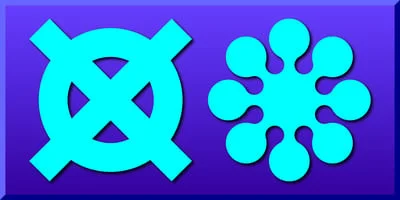
Geometric Ornaments Font
Geometric Ornaments Font is perfect for modern architectural presentations, contemporary art gallery exhibitions, minimalist design portfolios, geometric pattern textile designs, mathematical visualization projects, and sophisticated decorative border applications. Its precise character makes it ideal for architecture firms, contemporary artists, pattern designers, mathematics educators, and any application requiring systematic typography that conveys geometric precision, mathematical beauty, and the elegant harmony of perfectly balanced ornamental design elements.
Geometric Ornaments Font is exciting because it celebrates the mathematical perfection and visual harmony of geometric design through precisely crafted ornamental elements that demonstrate the inherent beauty found in mathematical relationships and systematic patterns. Its angular proportions and geometric details reflect the fundamental principles of design theory and the satisfying order that emerges from mathematical precision, making it perfect for organizations seeking to convey systematic thinking and design excellence. The font's geometric character transforms communications into expressions of mathematical artistry.
Geometric Ornaments Font family includes mathematically-inspired weight variations typically featuring Light, Regular, Medium, and Bold options with systematic styling that maintains geometric authenticity. The family often incorporates mathematical symbols, geometric patterns, and ornamental elements designed for architectural and design applications, providing designers with comprehensive tools for creating authentic, geometry-focused typographic compositions.
When selecting mathematical design typography solutions, Geometric Ornaments Font represents an exceptional choice for architectural and systematic design projects. This precise typeface brings instant geometric authenticity to any design, making it invaluable for architects, mathematical educators, and contemporary designers celebrating systematic beauty. Whether you're developing architectural presentation materials, creating geometric pattern designs, or designing mathematical education content, Geometric Ornaments Font provides the mathematical precision and geometric elegance essential for expressing systematic design principles in today's precision-focused design marketplace.